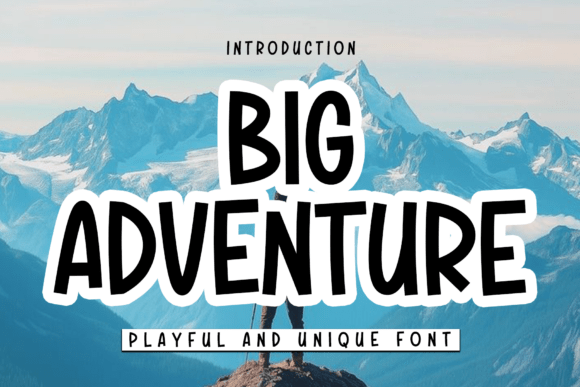
The Big Adventure Font: A Designer’s New Best Friend
I’ll never forget the time I was working on a branding project for a new outdoor gear company. I had the logo concept nailed, but I was struggling to find the perfect font to complement it. The client wanted something that felt adventurous, yet professional. I spent hours scouring font websites, but nothing seemed quite right. That was until I stumbled upon the Big Adventure font. It’s been a game-changer for my design projects ever since.
What Makes Big Adventure Special?
Big Adventure is a smart and minimal handwritten sans-serif font with rounded corners and unique letterforms, giving it a soft yet striking appearance. It’s perfect for branding, social media content, logos, and digital applications. This font strikes a balance between professionalism and creativity, adding a modern edge to any project.
Here’s what I love about Big Adventure:
- ✨ Unique and quirky letterforms that add personality to any design
- ✅ Perfect balance of softness and edge
- ⚡️ Highly legible, even at small sizes
- 🌈 Works well in both digital and print applications
And, of course, no font is perfect. Here are a few quirks to keep in mind:
- 🤔 Some characters may not work well in all languages or scripts
- ⚠️ Limited availability of certain OpenType features
The Designer Inspiration Behind Big Adventure
The story behind Big Adventure is one of creativity and experimentation. The designer behind this font was inspired by the great outdoors and a desire to create a font that felt adventurous, yet professional. Through a process of trial and error, they landed on a unique and quirky design that’s perfect for adding a touch of personality to any project.
Q: What type of projects is Big Adventure best suited for?
A: Big Adventure is perfect for branding, social media content, logos, and digital applications.
Q: Is Big Adventure easy to read?
A: Yes, Big Adventure is highly legible, even at small sizes.
Q: Does Big Adventure come with OpenType features?
A: Yes, Big Adventure comes with a range of OpenType features, including glyphs and stylistic alternates.